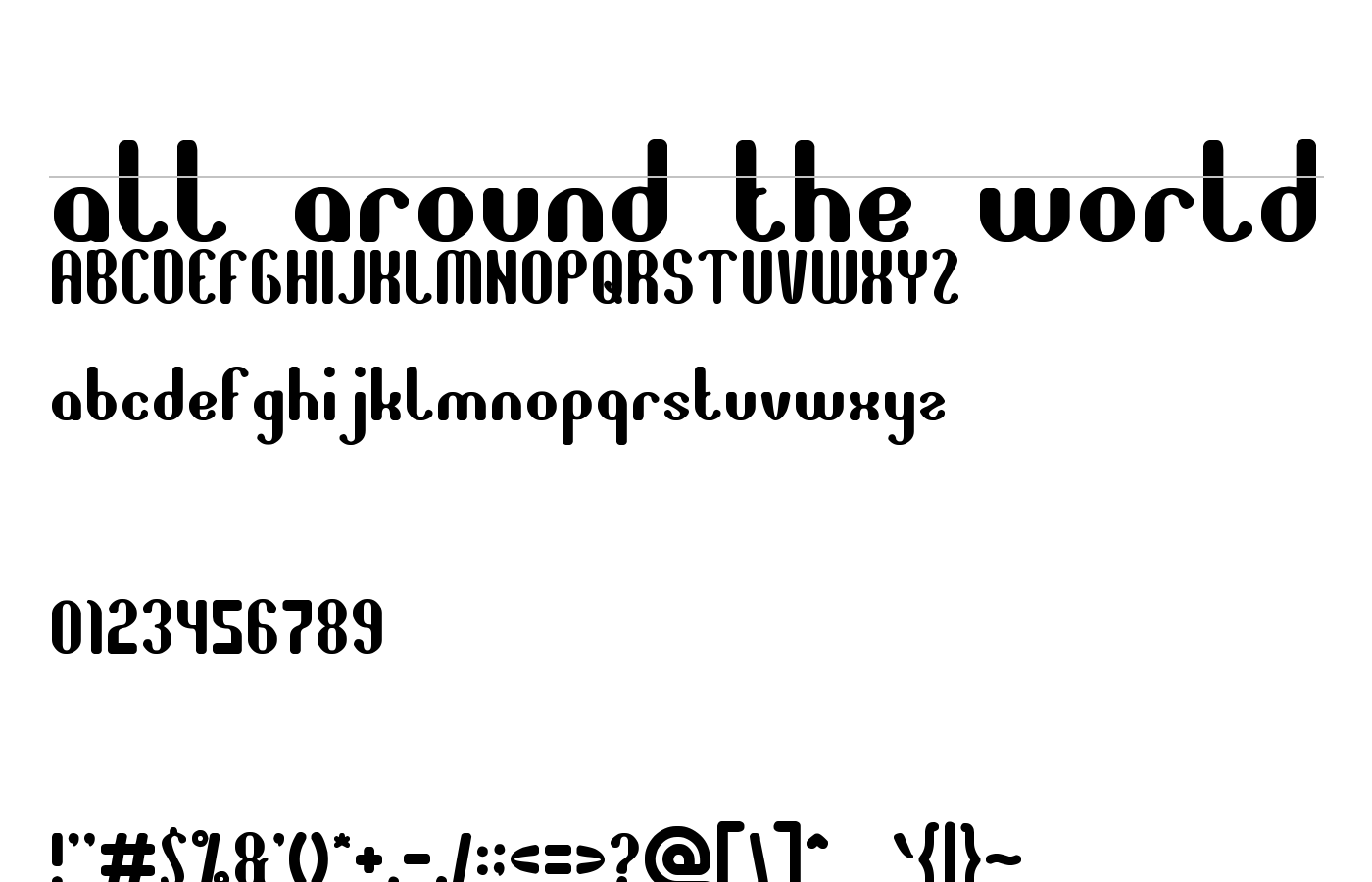
All Around the World is a playful and modern sans serif font with a tall, condensed structure and rounded edges that give it a friendly, approachable feel. Its unique letterforms feature subtle curves and distinctive terminal shapes, making it ideal for creative headlines, branding, and packaging that aim to stand out with a whimsical yet stylish personality. This font works well in designs that want to convey a lively, contemporary vibe while maintaining clear readability.
all around the world Font
About all around the world Font